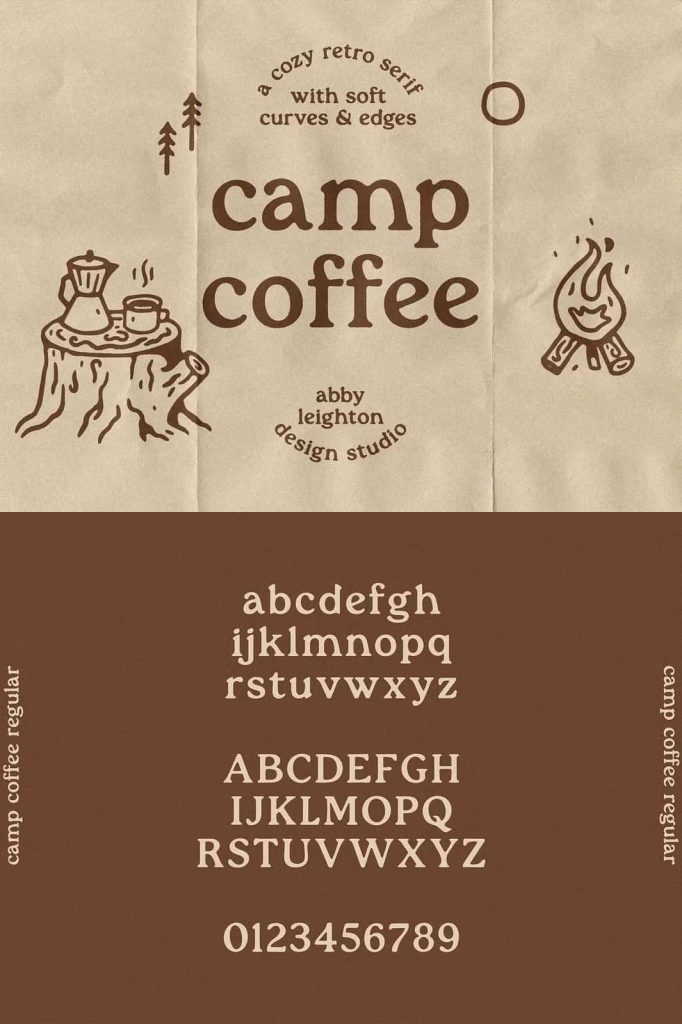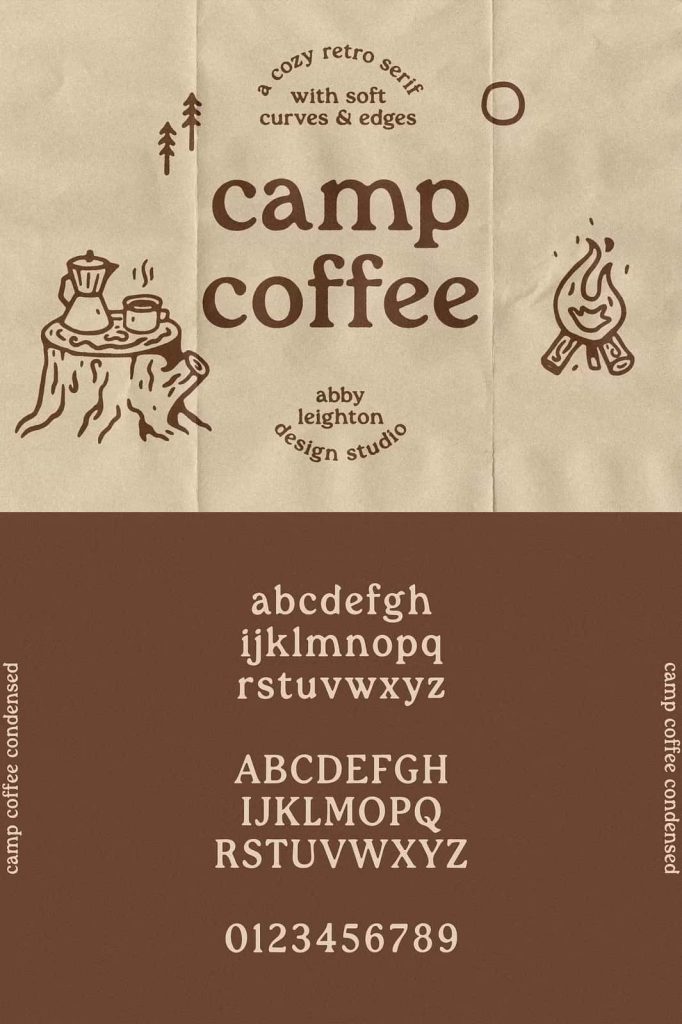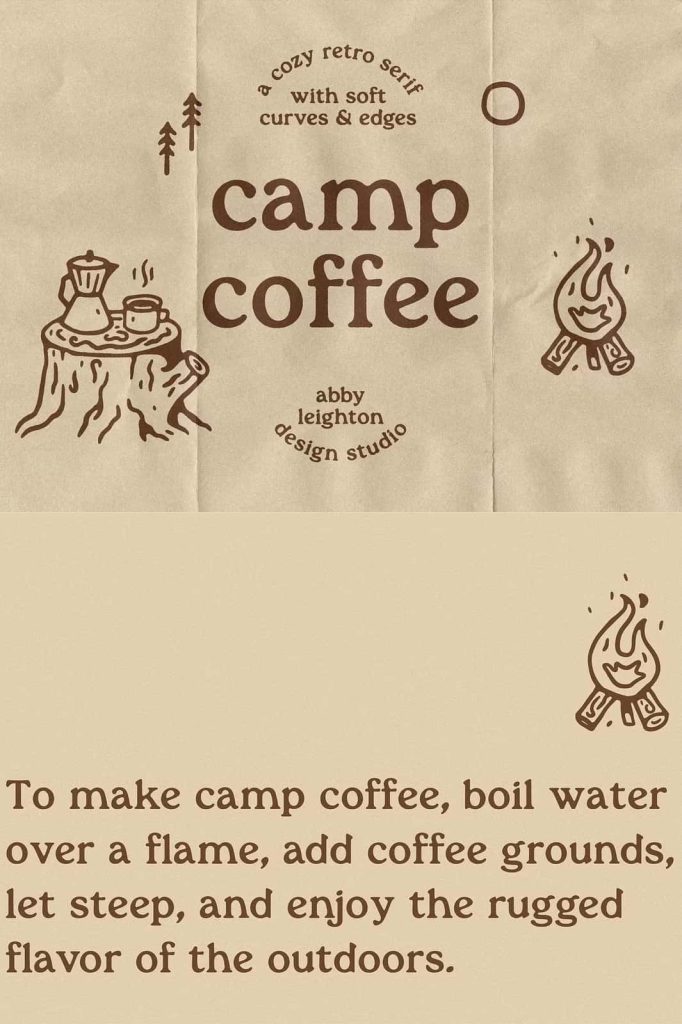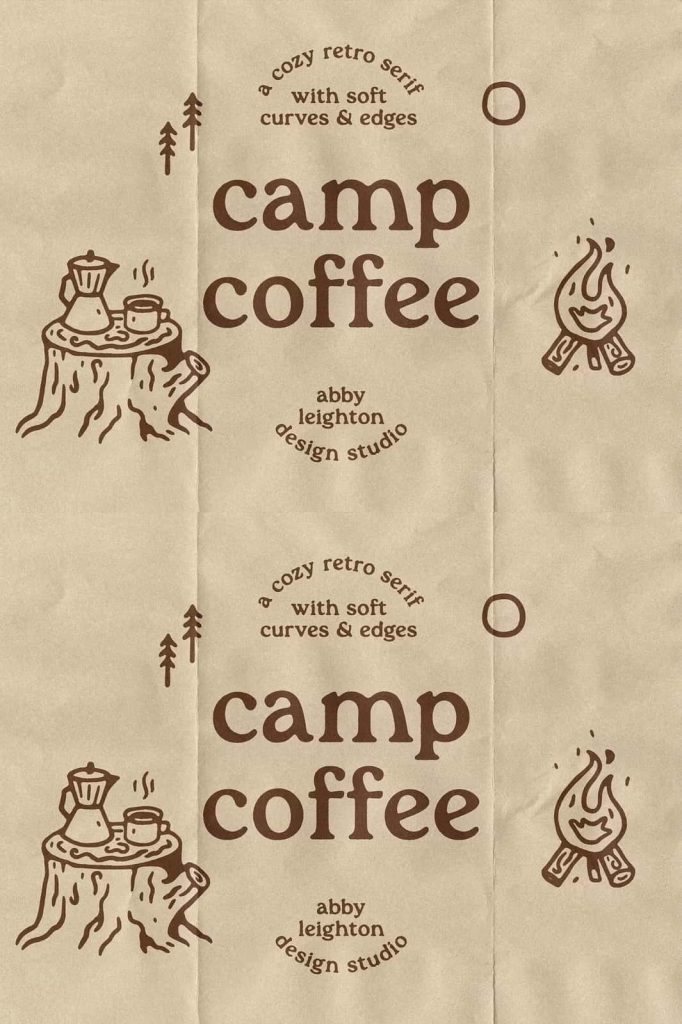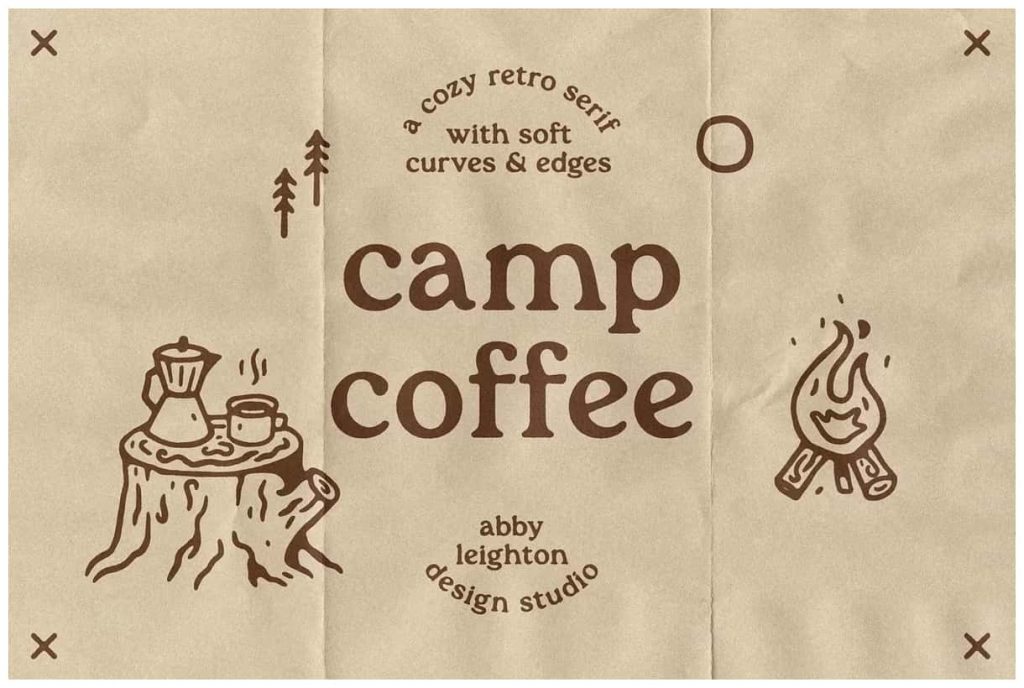
CAMP COFFEE by Abby LeightonleastedMarch 28, 2025Fonts Camp Coffee is the perfect cozy retro serif font. Fantastic choice for your next graphic design project Download